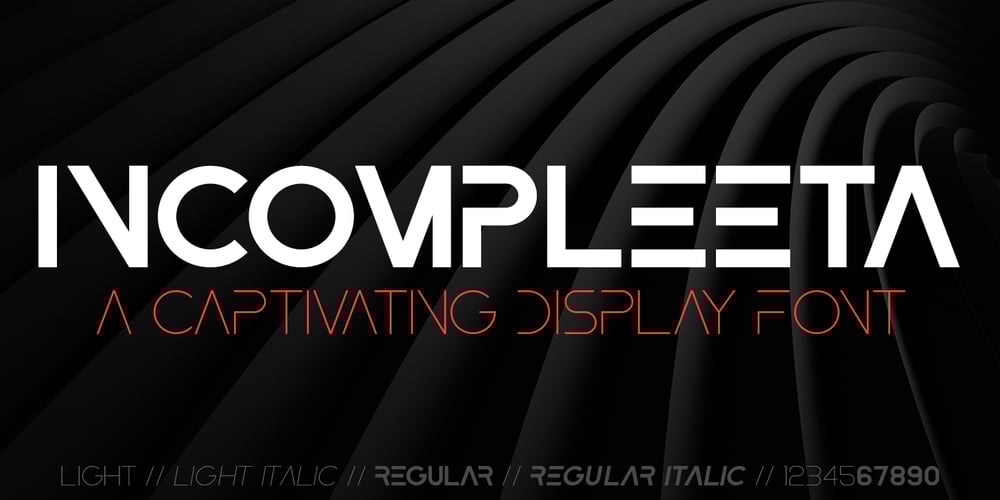
Incompleeta
Incompleeta font
Incompleeta Font Family was designed by Tim Rex and published by Rex Face. Incompleeta contains 8 styles and family package options. Incompleeta is a modern sans serif, display font. Removing structural elements from some of the characters results in some really interesting word forms. Incompleeta is a graphic designer�s best friend. It�s great for branding, headlines, and signage.